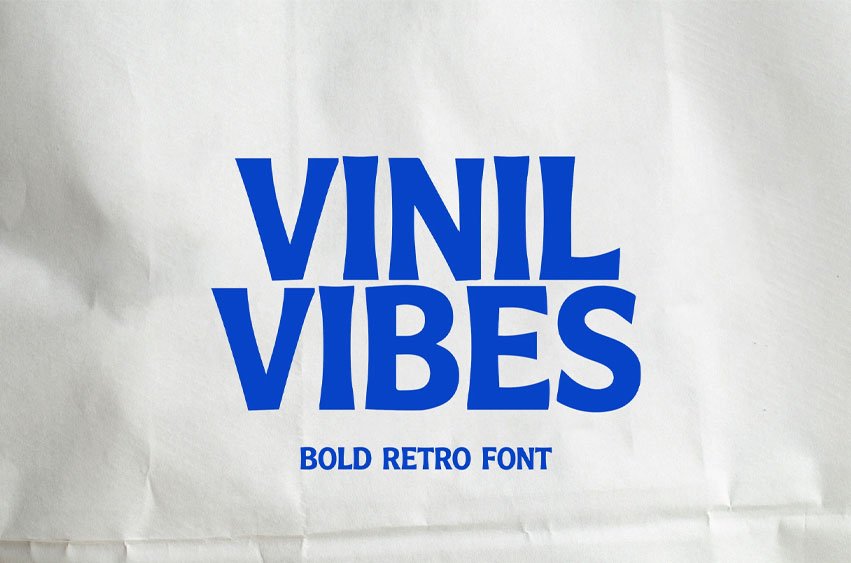
Vinil Vibes Font
Vinil Vibes Font Bring instant retro energy to your designs with Vinil Vibes — a bold, wavy display font made for big headlines and statement typography.
Perfect for vintage-inspired branding and anything that needs a fun, groovy punch.